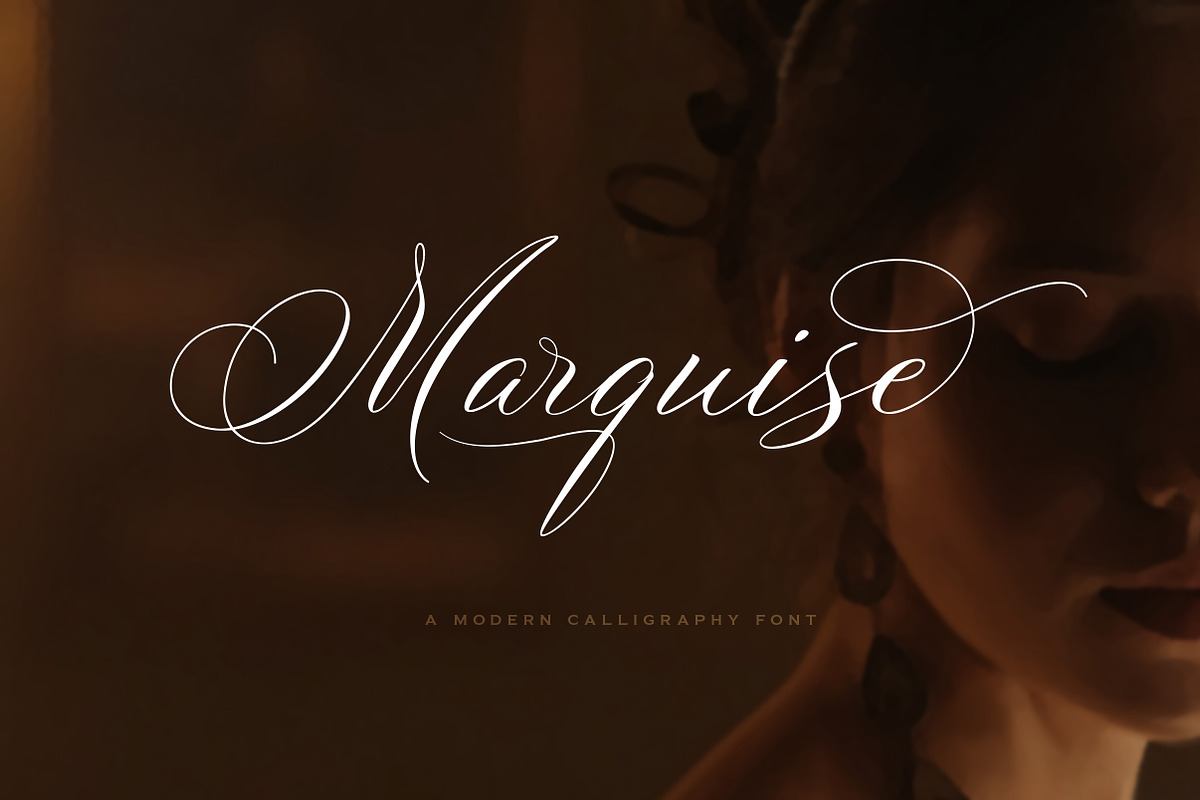
Marquise - A Wedding Script Font Free Download
Marquise – A Wedding Script Font Free Download
You must purchase this font for commercial use. However, you can download Marquise – A Wedding Script Font Free Download for testing purposes. Marquise is an elegant and romantic script font, carefully crafted to bring grace and sophistication to wedding invitations, bridal stationery, event branding, love letters, and feminine product packaging.
Featuring flowing curves, delicate strokes, and beautiful swashes, Marquise captures the look of hand-lettered calligraphy with a luxurious and timeless feel. Its natural rhythm and refined details make it ideal for names, headings, and decorative accents that need to feel heartfelt and memorable.